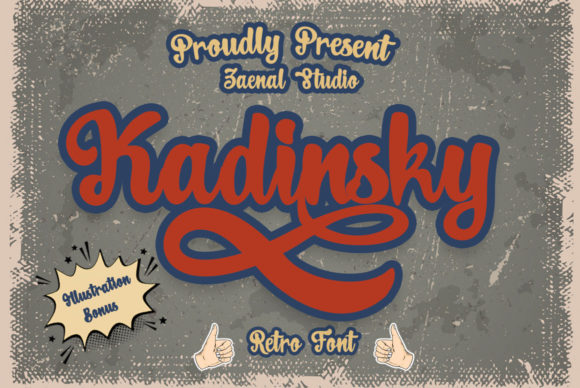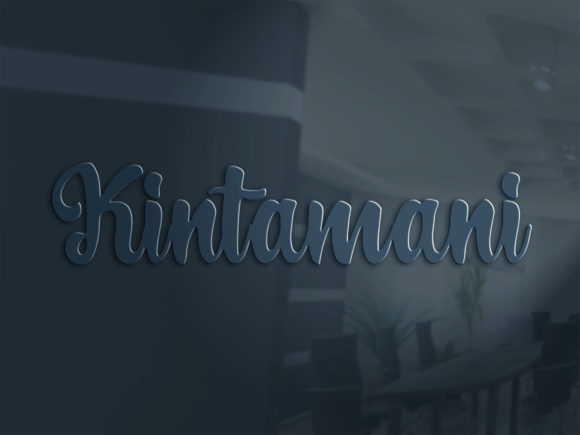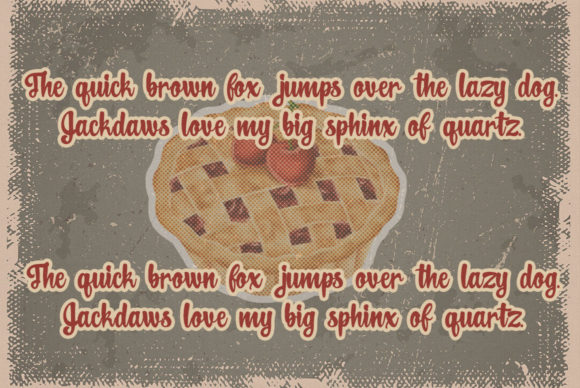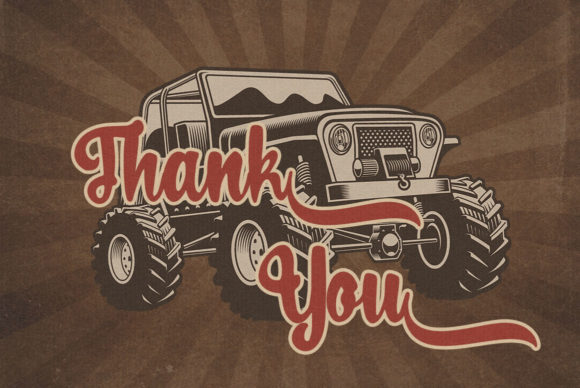
About Kadinsky Font
Kadinsky is a Retro, unique, and funny font and very elegant font for brand and logo designs. It is perfect for, cartoons, vintage logos, BRANDING and LOGO DESIGN. You will get a classy, elegant, and of course unique logo with this font.